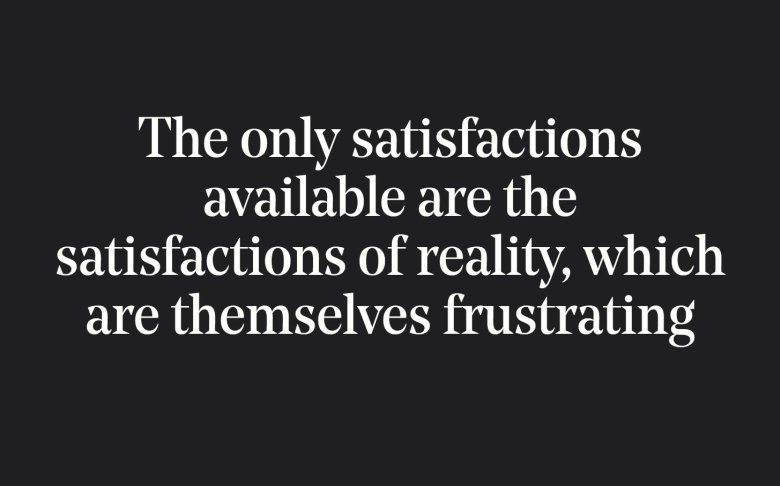
While Brandon Grotesque, Museo Sans and Playfair Display continue to be solid choices for designers, there is a whole host of fonts making headlines of late, some that we predict will become big contenders throughout 2018.
Based on recent trends, our students’ work at Shillington and what the world’s leading foundries are fast-selling, we’ve pulled together a list of what we predict will be popular this year. From serif to display, our top 10 hot fonts will cover all bases, whether you’re designing a logo or laying out type for a publication.
1. Harriet
Available from OkayType, Harriet is nothing new, having scooped a Certificate of Type Design Awesomeness from the Type Director’s Club in 2012. But we’ve seen quite a lot of it in recent months. So much so that we think it’s making a comeback.
A rational serif typeface — inspired by design popular in the mid-20th-century, Harriet draws from both transitional faces, such as Baskerville, and modern faces, like Century. However, unlike these historic models, it adopts more contemporary features and finishes. Harriet also includes a set of Display styles for potential logos as well as a set of diligent and sturdy Text styles suitable for body copy.
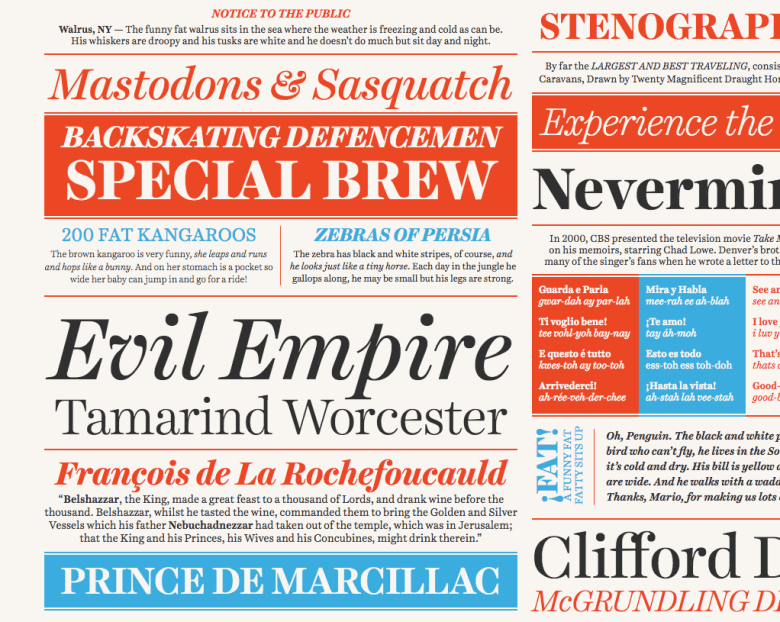
2. Larish Neue
RP Digital Type Foundry sells its ever-popular Larish Neue typeface, which is apparently a by-product of its Larish Alte. This version resulted from an attempt to create a contemporary looking typeface with the DNA of the original. Well, we’re glad it made the cut.
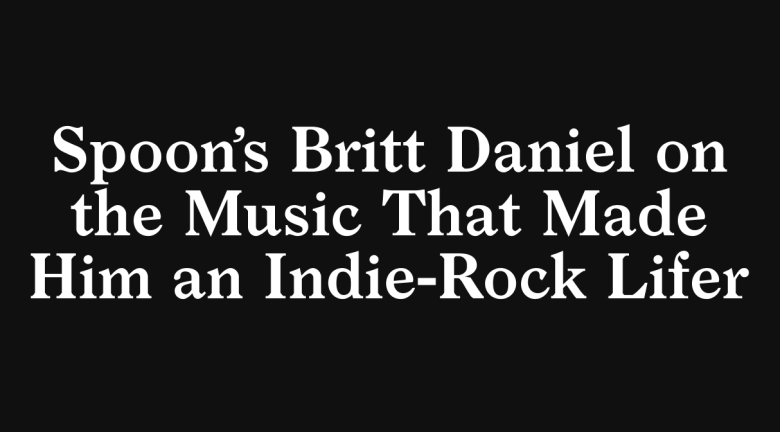
3. Ogg
New York City-based digital type foundry, Sharp, are the people behind Ogg, a font inspired by the hand lettering of the 20th-century book designer and calligrapher Oscar Ogg. It captures the unique mix of calligraphic and typographic form he achieved through his use of hand-carved pen nibs, brushes, and white-out. This is something we can see splashed over book covers, magazine spreads and posters.
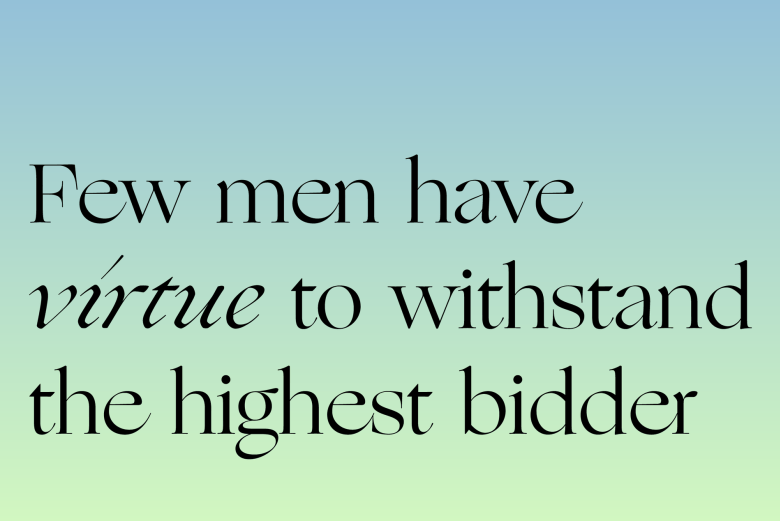
4. Domaine Display
The Domaine typeface family descends directly from a Hardy’s logotype and typeface, which New Zealand type designer Kris Sowersby designed under direction from Adelaide-based design consultancy Parallax.
It’s the largest family he’s made to date, comprising 46 styles. “I learned a great deal through the development of this typeface. I realised that it’s important never to dismiss a genre. If I had ignored what I was unfamiliar with, or considered not to my taste, I might have missed out on the hidden magic in those old Latin series. Experience has shown me that often there is much to draw from a typeface or style I don’t initially find endearing. With Domaine, I wanted to design outside of my usual style and comfort zone, and to create full and elegant curves. To sum up Domaine’s style: contemporary, curvaceous Latin detailing on a Scotch skeleton.”
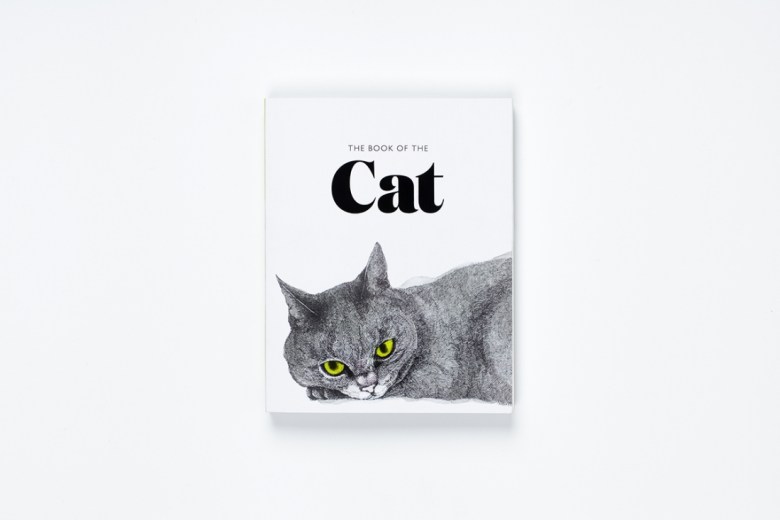
5. Transcript
In the summer of 2010 Colophon was commissioned by Daniel Baer of Studio Baer to develop a typeface for Centrefold Magazine No. 6. “The aim was to produce a headline typeface with enough distinction and strength to carry through the issue,” explains the Foundry.
In early 2011 Colophon decided to re-visit this bespoke typeface and extend it into a single weight commercial release: “Whilst still maintaining the essence of the initial intention we re-purposed the single cut into a more refined commercial release. Fast-forward to 2017, and as our overall commercial library is both simultaneously expanded and re-mastered, Transcript moves with it.”
Transcript now has a further five weights, 14 styles in both a proportional and monospaced families, as well as extra language support, to include both Cyrillic and Greek scripts. We think it’s going to be super popular in 2018.
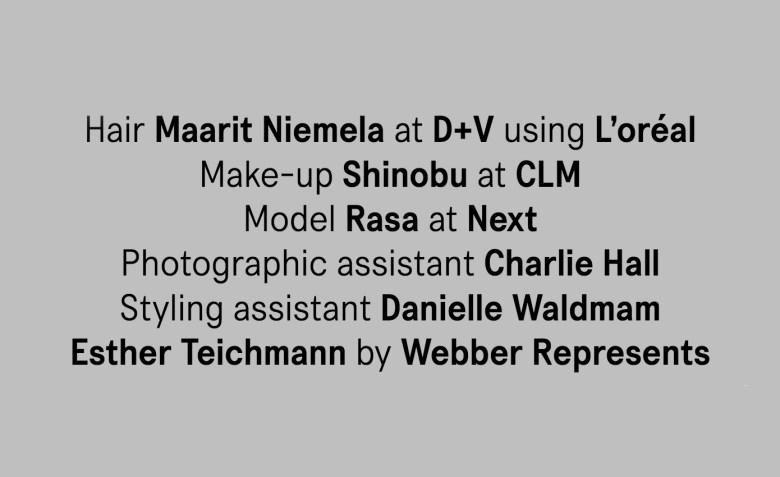
6. Opposit
Opposit by the Good Type Foundry is popping up everywhere and it’s easy to see why. The high contrast sans serif typeface has opposite contrasts from your average font. Designed by Kenneth Knutsen, the typeface ranges from light to heavy, making it a versatile font for your 2018 projects.
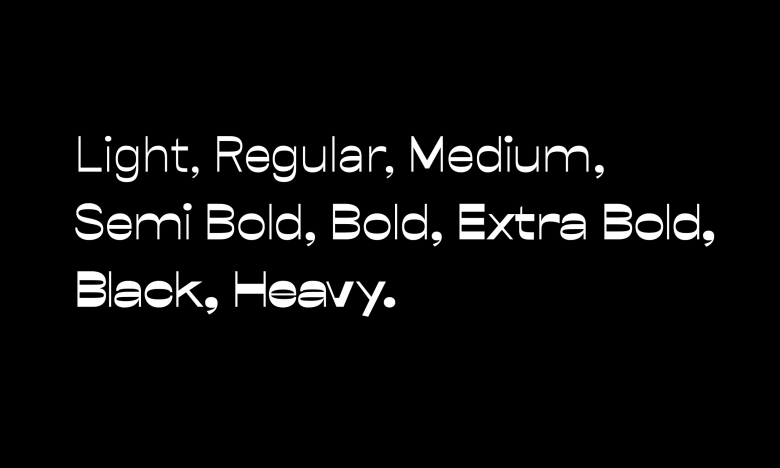
7. Moniker
Taking inspiration from the rounded sans serifs of the last five decades, Moniker is a friendly sans by Process Type Foundry that captures the “informal tone of the genre while building on the typographic possibilities left under-explored”. It’s a full family with five weights, lively matching italics and small caps, making it an ideal contender for a range of design projects from wayfinding to identity work.
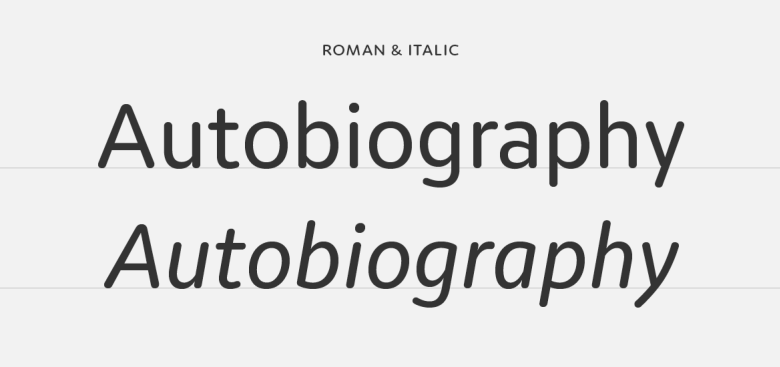
8. Trade Gothic Display
If you really can’t limit yourself to black and white typefaces, then we’ve got the solution just for you. Designed by Lynne Yun at Monotype and available via MyFonts, Trade Gothic Display is full of colour, character and charm. Perfect for display posters, advertising campaigns or publications, it’s based on the Trade Gothic Condensed Heavy typeface and can really stand its own ground.
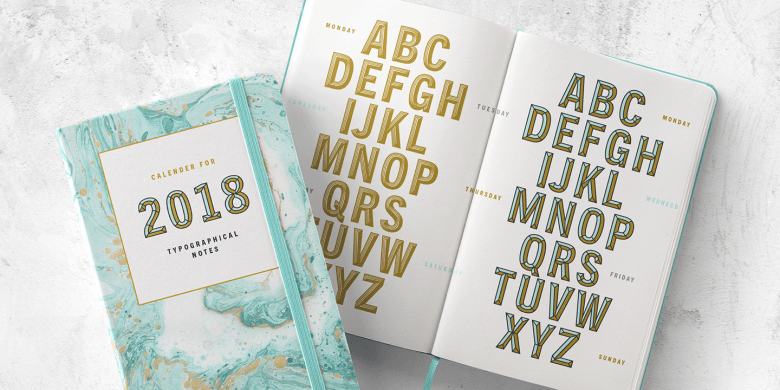
9. Mont
Mont is a new geometric sans serif by Fontfabric consisting of 10 weights from Hairline to Black. Perfect for headlines or logos, it has a prominent x-height, distinctive pointed triangular bracketed “t” and coverage of multipe OpenType features. We think this is going to be huge in 2018.